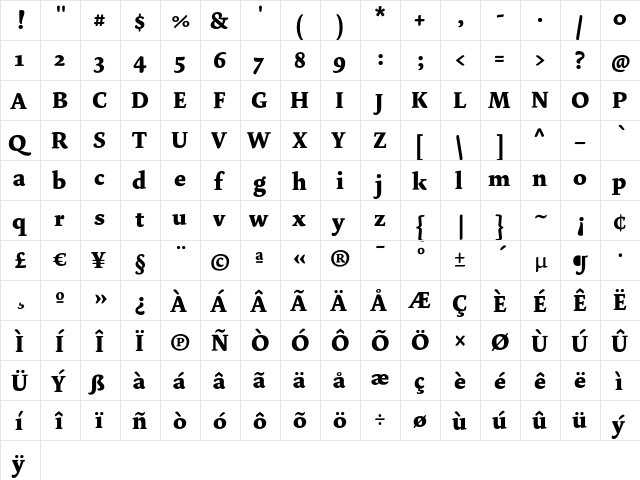
Dolly Bold
Design Context for Dolly Typeface
Dolly is a composed and adaptable typeface that performs quietly and consistently across a wide range of design contexts. Its bold stroke weight gives it real presence on the page.